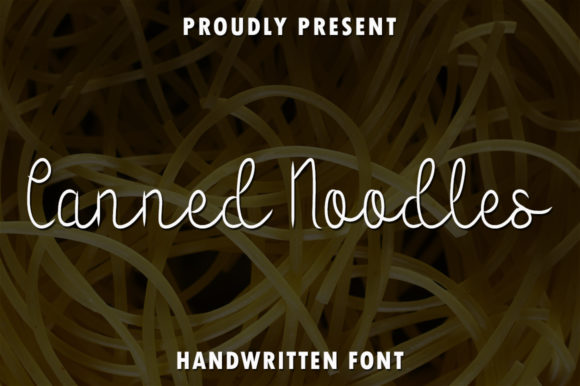
Behold, the Canned Noodles Font, a gastronomic delight for your creative palate! Inspired by the irresistible charm of hand-lettering and the comforting warmth of a piping hot bowl of noodles, this script font is a visual feast for the eyes.
Picture this: your logo, crafted with the Canned Noodles Font, dancing across your website like a delicate noodle twirling gracefully on your fork. Each letter, a perfectly formed morsel, invites your customers to savor the flavor of your brand.
Unleash your inner artist and let your creativity flow like a river of noodles. The Canned Noodles Font is an open invitation to express yourself in a way that's uniquely yours. Create stunning art wall decor that transports viewers to a world where noodles take center stage. Let your imagination run wild as you craft personalized invitations, motivational quotes, and eye-catching posters that leave a lasting impression.
With the Canned Noodles Font, your designs will be the talk of the town, just like that one noodle dish that everyone raves about. It's the perfect font for businesses that want to stand out, be remembered, and leave a mouthwatering taste in the minds of their customers.